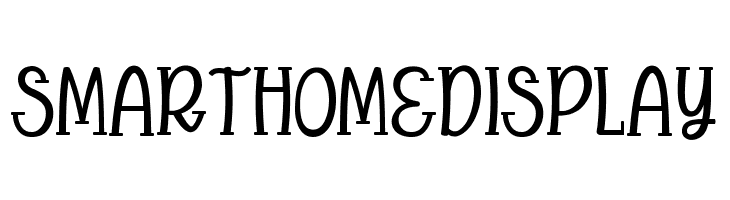
A sleek, modern font with clean lines and a minimalist aesthetic.
A lively and dynamic script font with playful, flowing letterforms.
A lively, cursive script font with fluid strokes and a personal touch.
A playful, handwritten font with tall, narrow letters and a casual style.
A playful, hand-drawn font with cartoon-like features and bold strokes.
A whimsical and decorative font with playful curls and loops.
A high-contrast, elegant font with artistic flourishes and a modern aesthetic.
Casual handwritten script font.
A bold, decorative Halloween-themed display font with playful, spooky details.
A playful, bold handwritten font with rounded, informal letterforms.